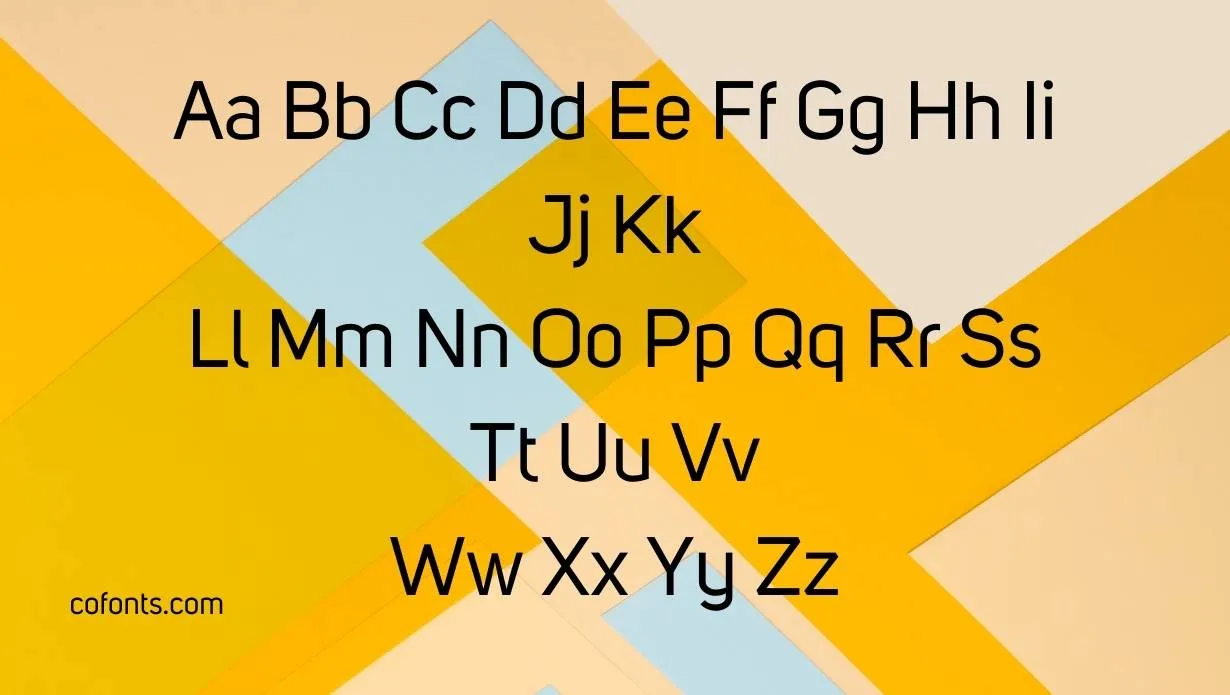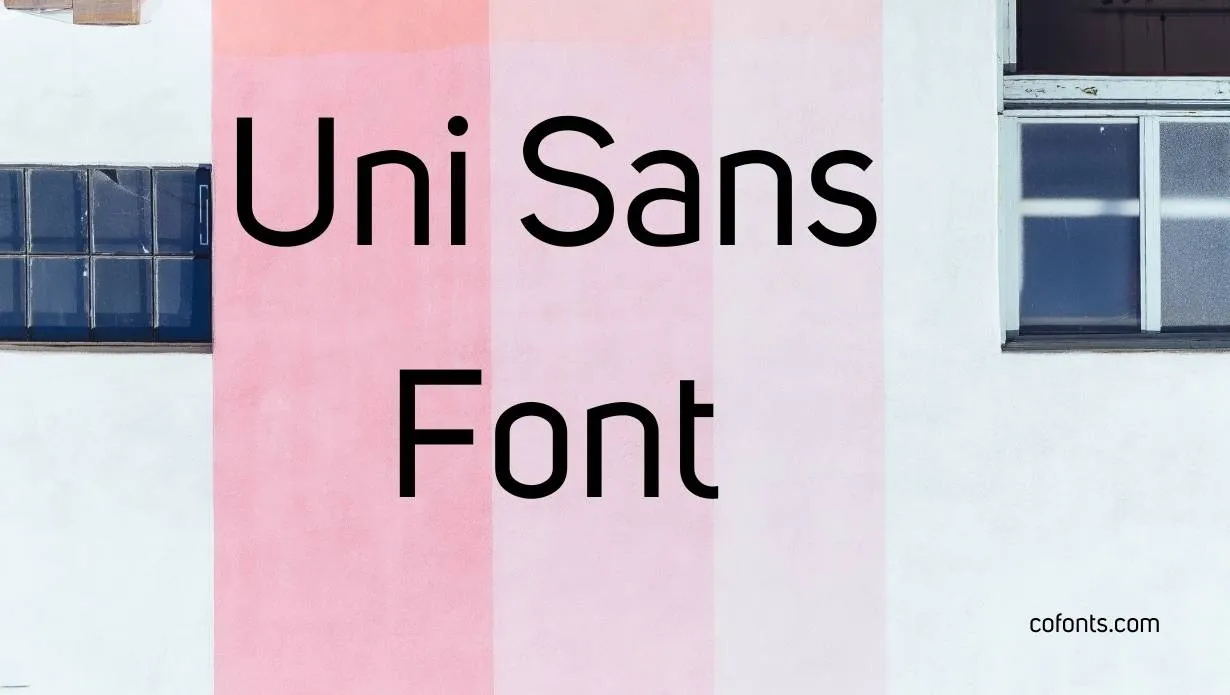
About Uni Sans Font Free Download
Uni Sans Font Free Download is a modern typeface available in multiple variants and styles.
- Uni Sans Font Regular
- Uni Sans Font Bold
- Uni Sans Font Italic